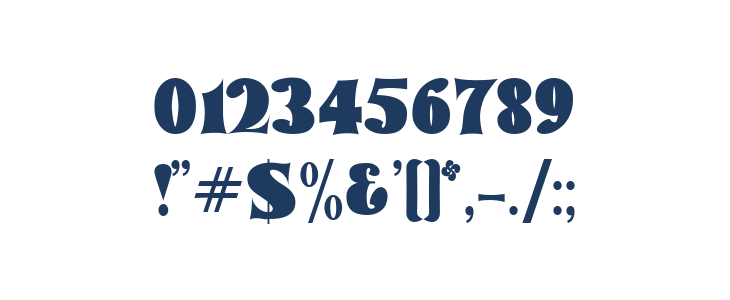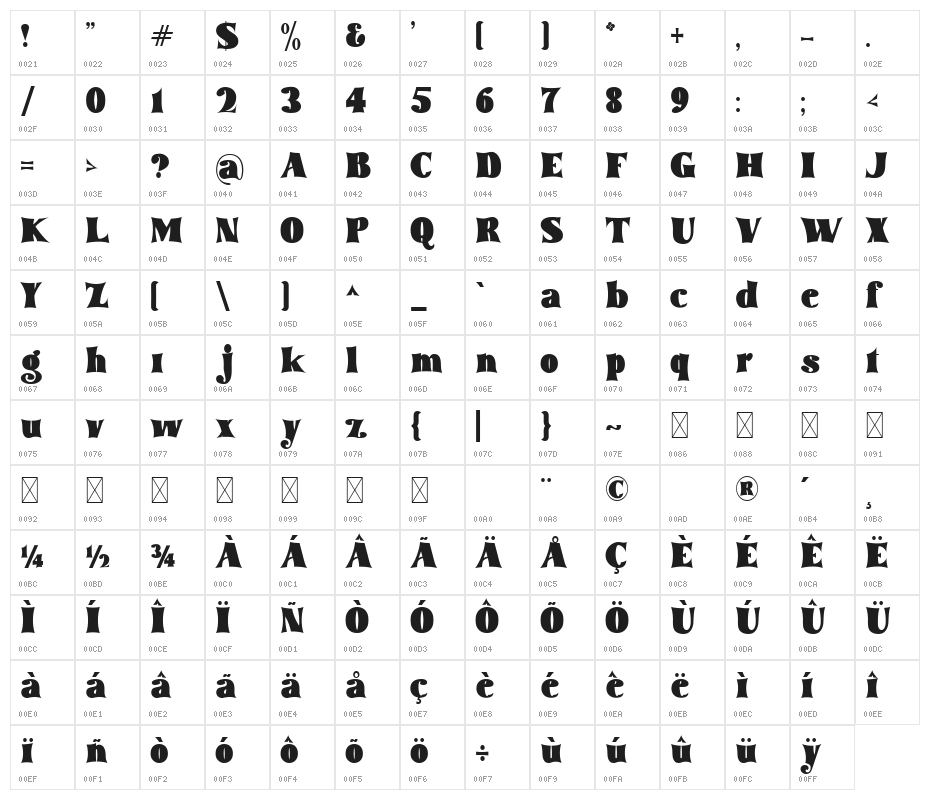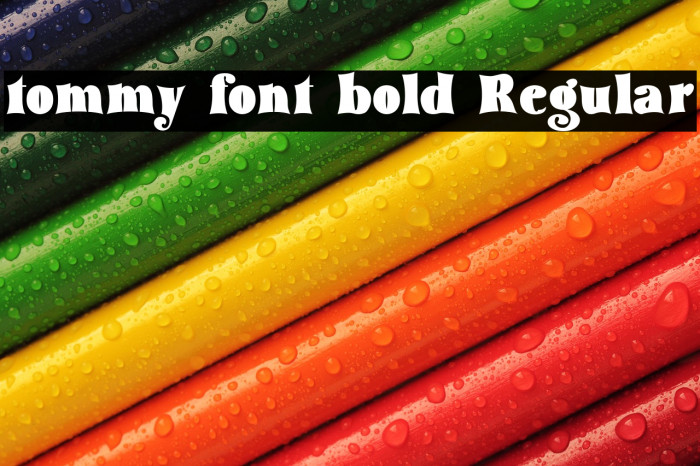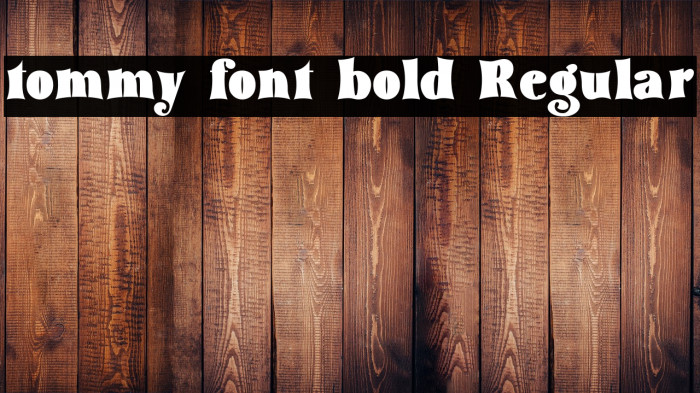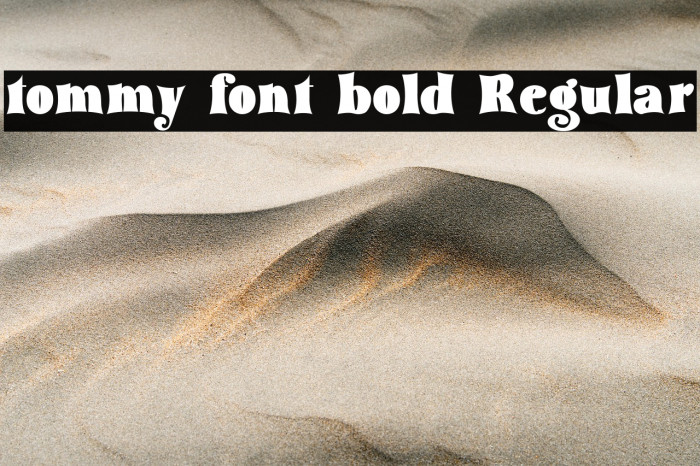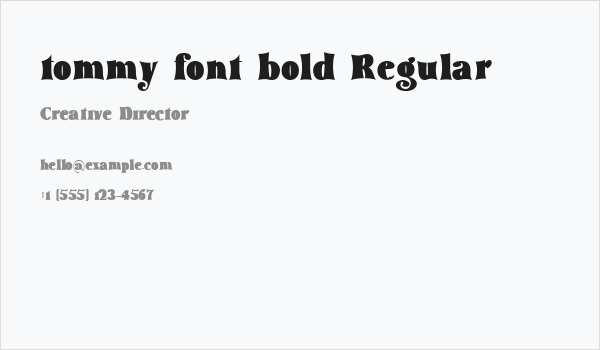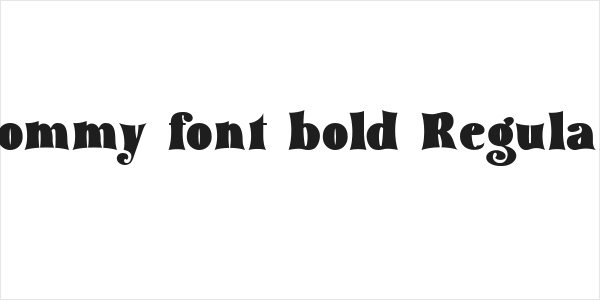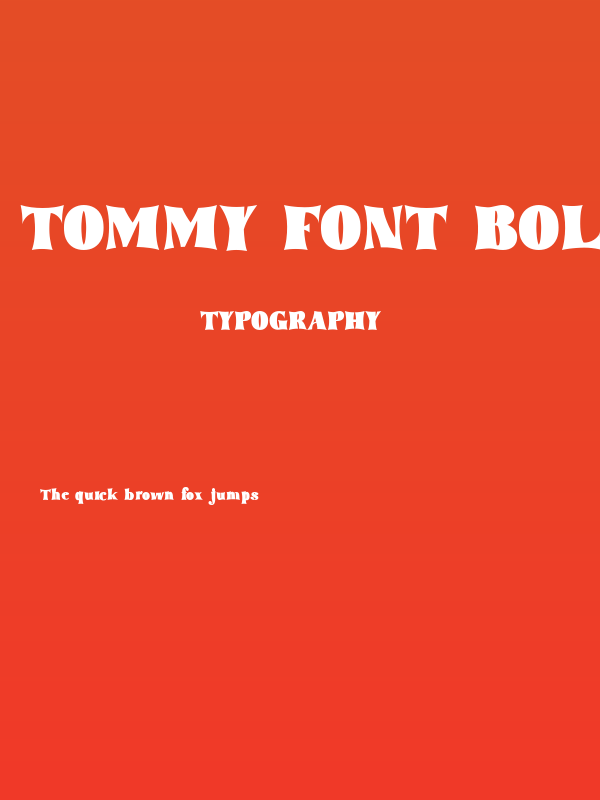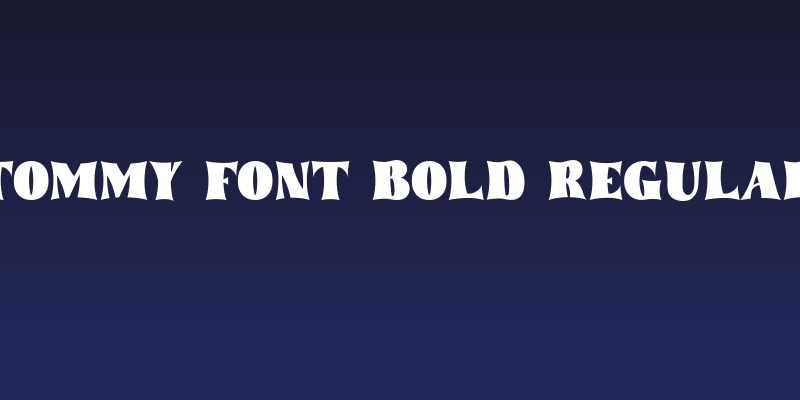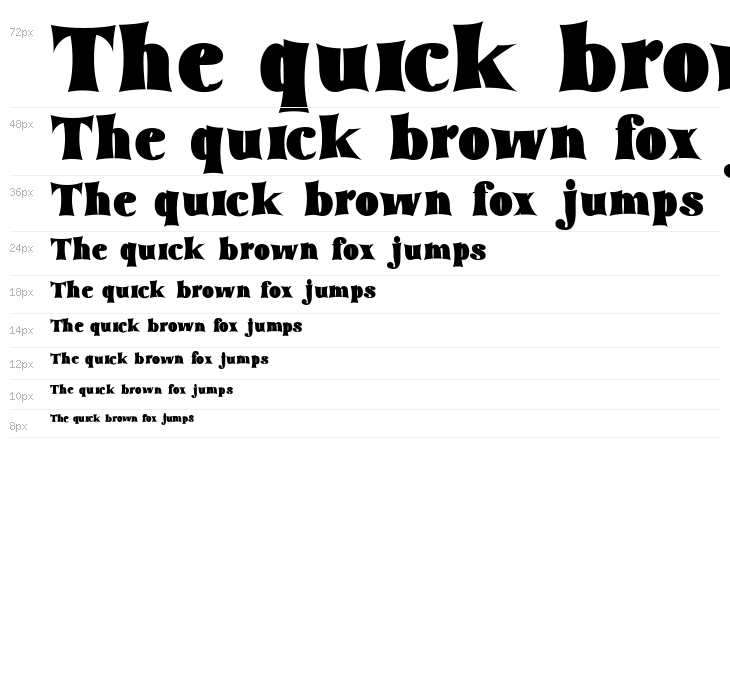
tommy font bold Regular Font
tommy font bold Regular Description
This font features a bold and dramatic style with thick, heavy strokes that create a strong visual impact. The characters have a unique, playful flair with exaggerated curves and angles, giving them a whimsical yet powerful appearance. The uppercase letters are particularly striking, with a sense of movement and energy, while the lowercase letters maintain a consistent style that complements the overall design. The numerals and special characters are equally bold, ensuring a cohesive look across all text elements. This font's distinctive style makes it ideal for attention-grabbing designs.